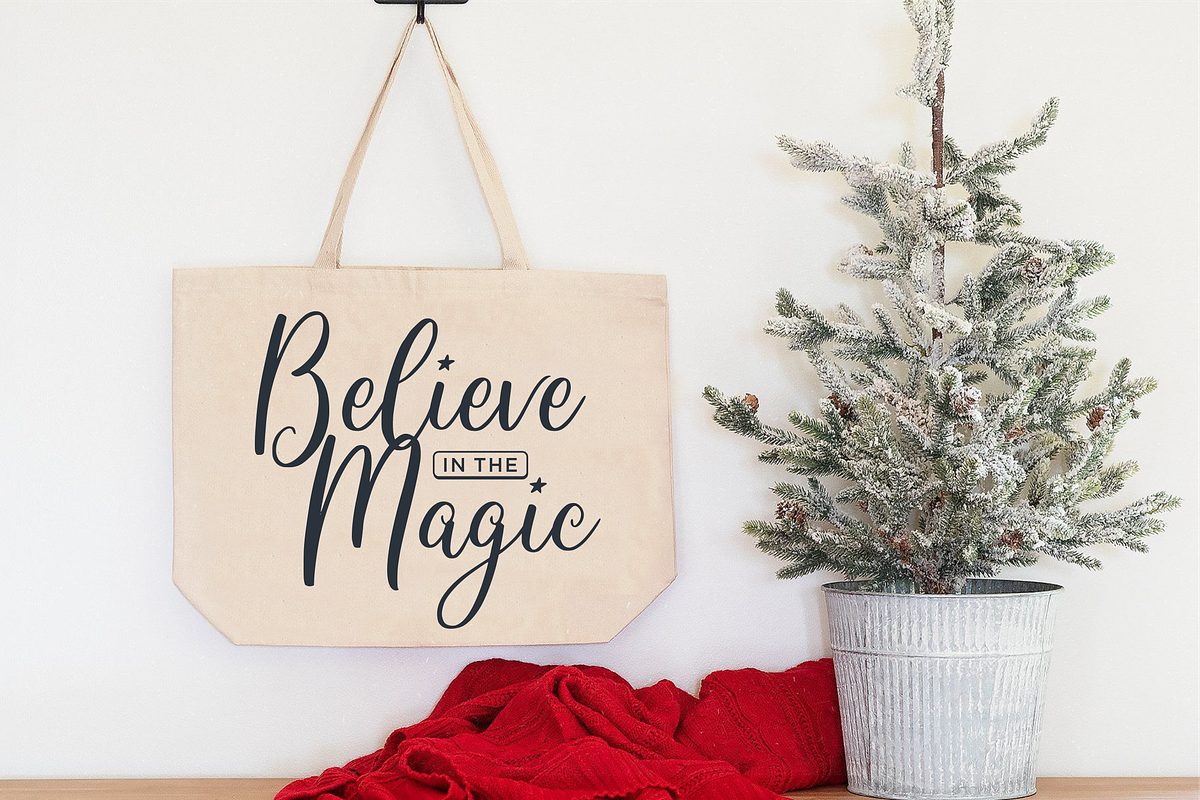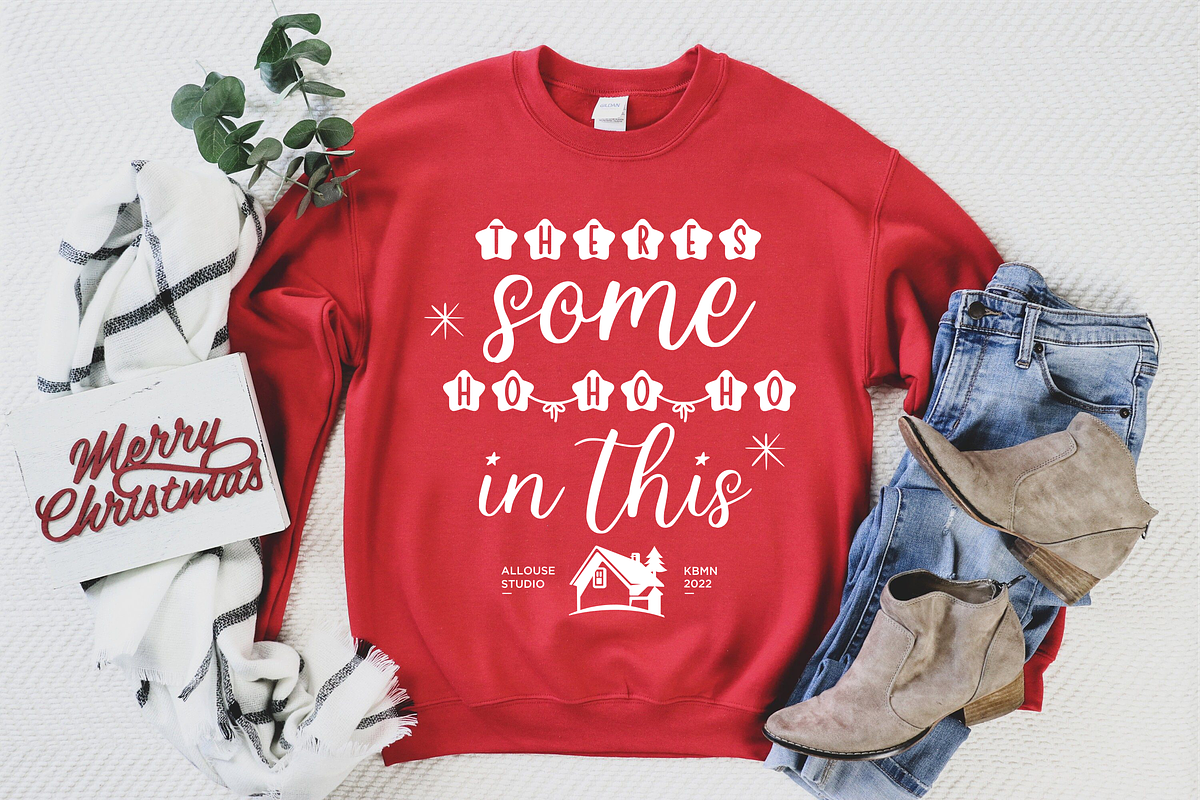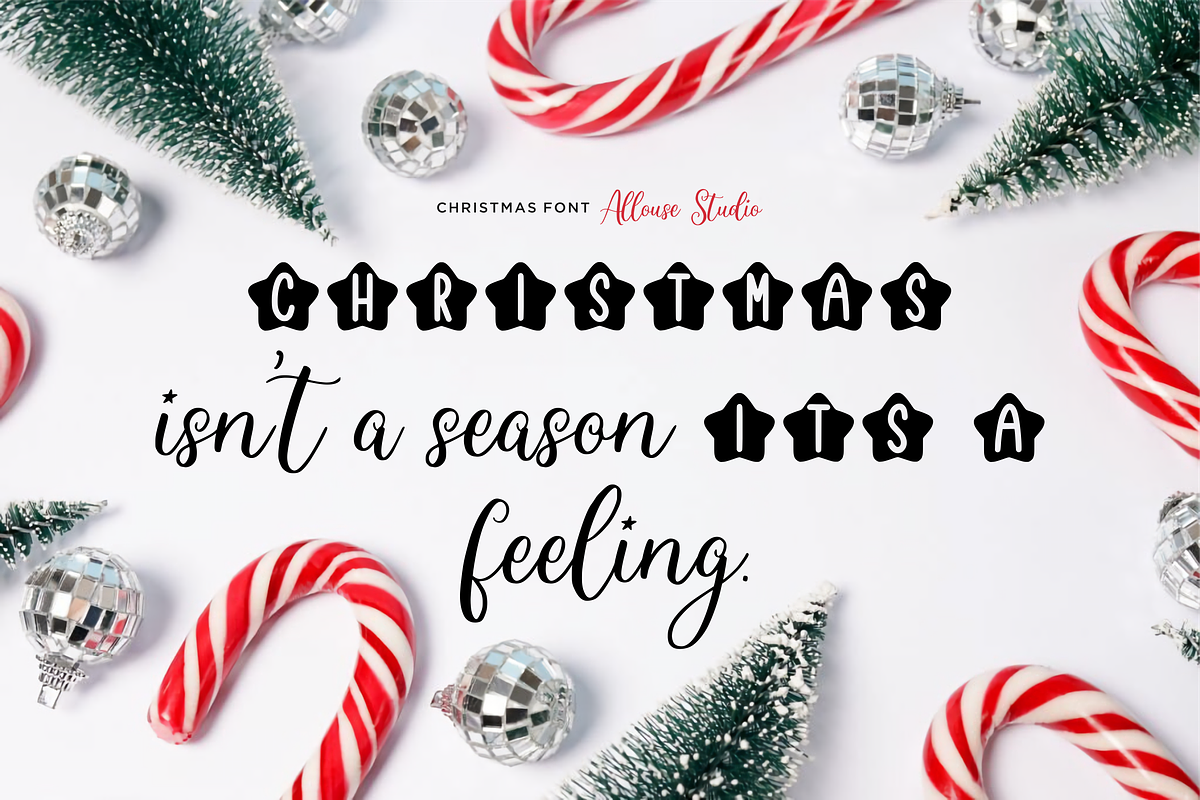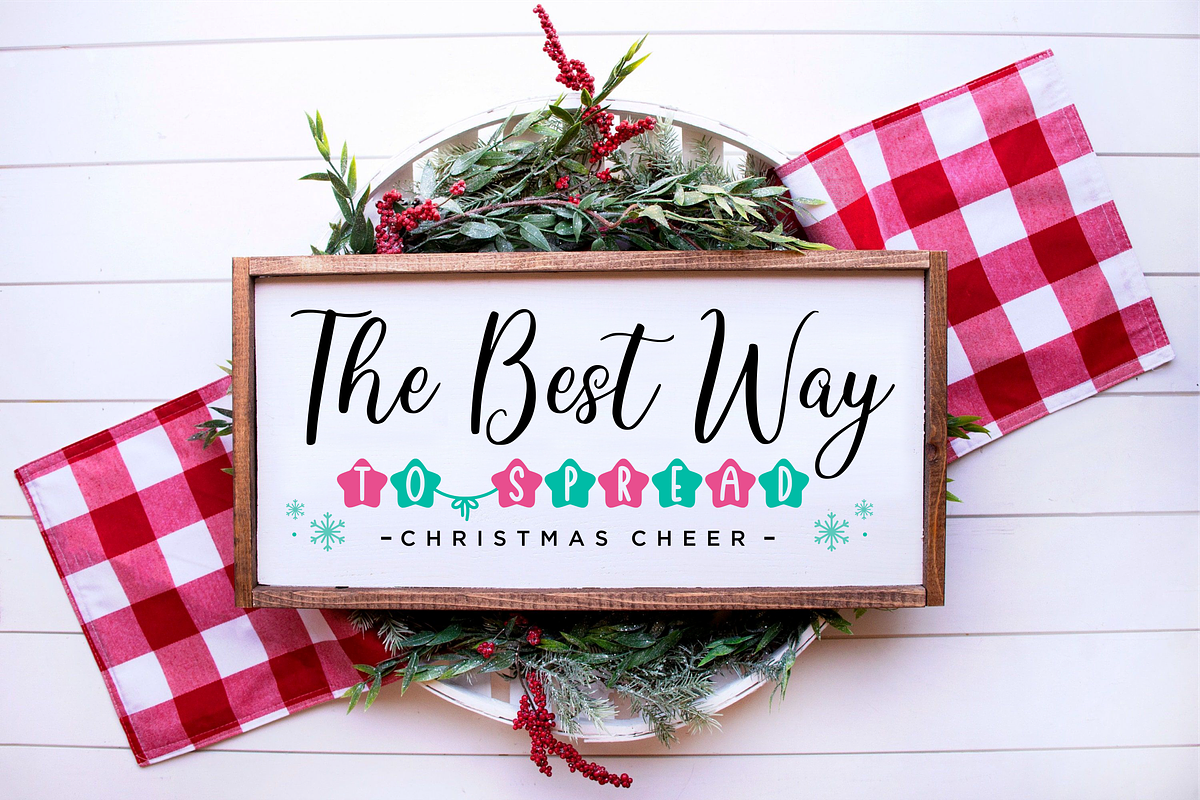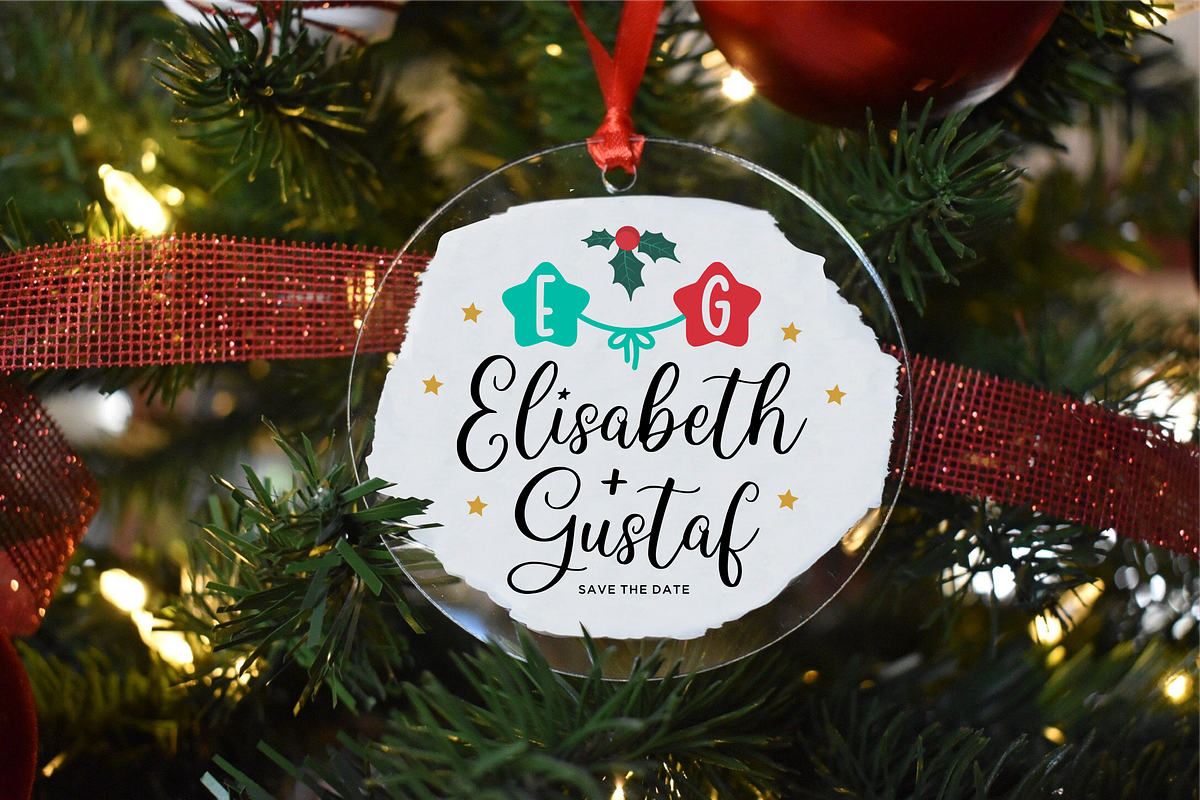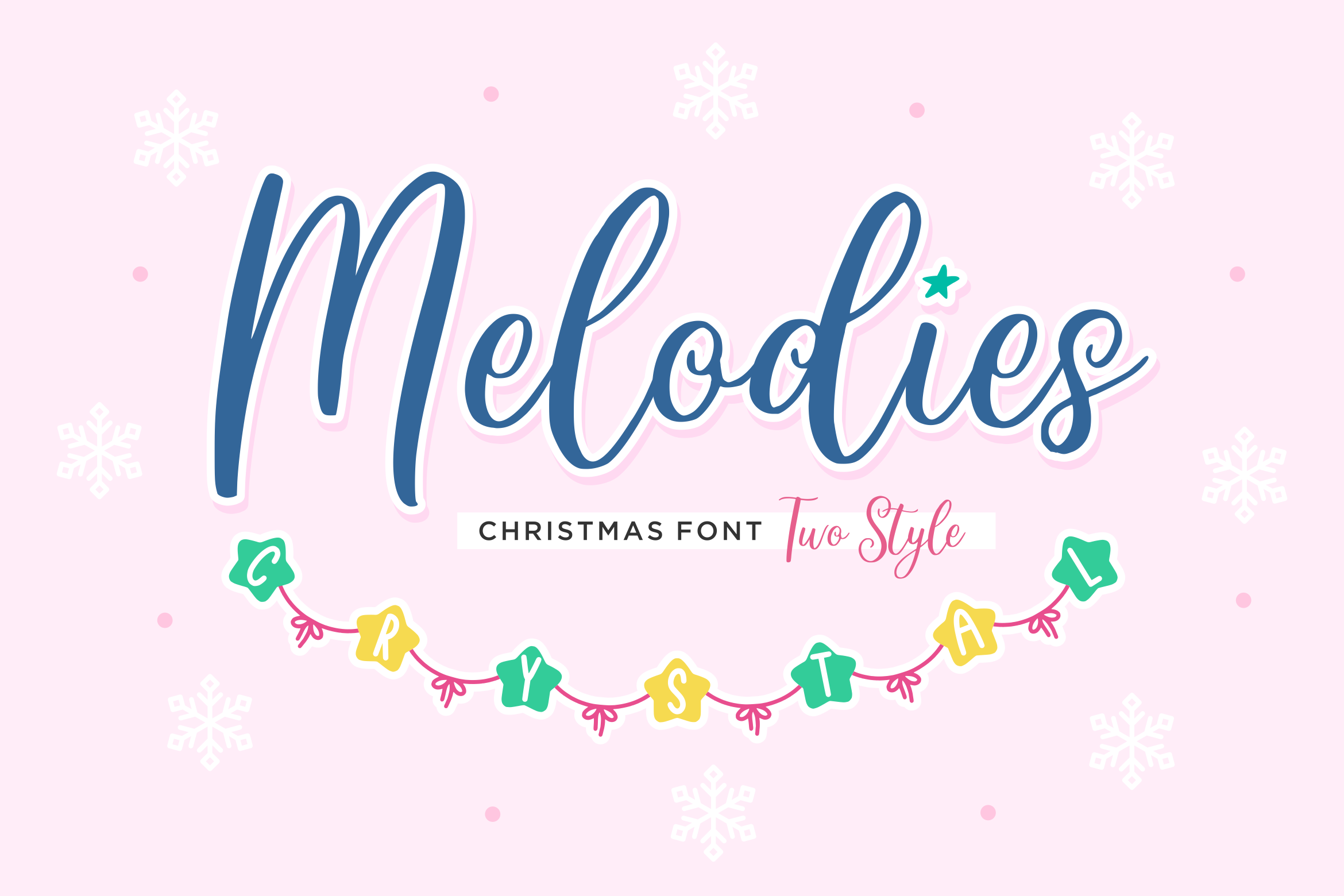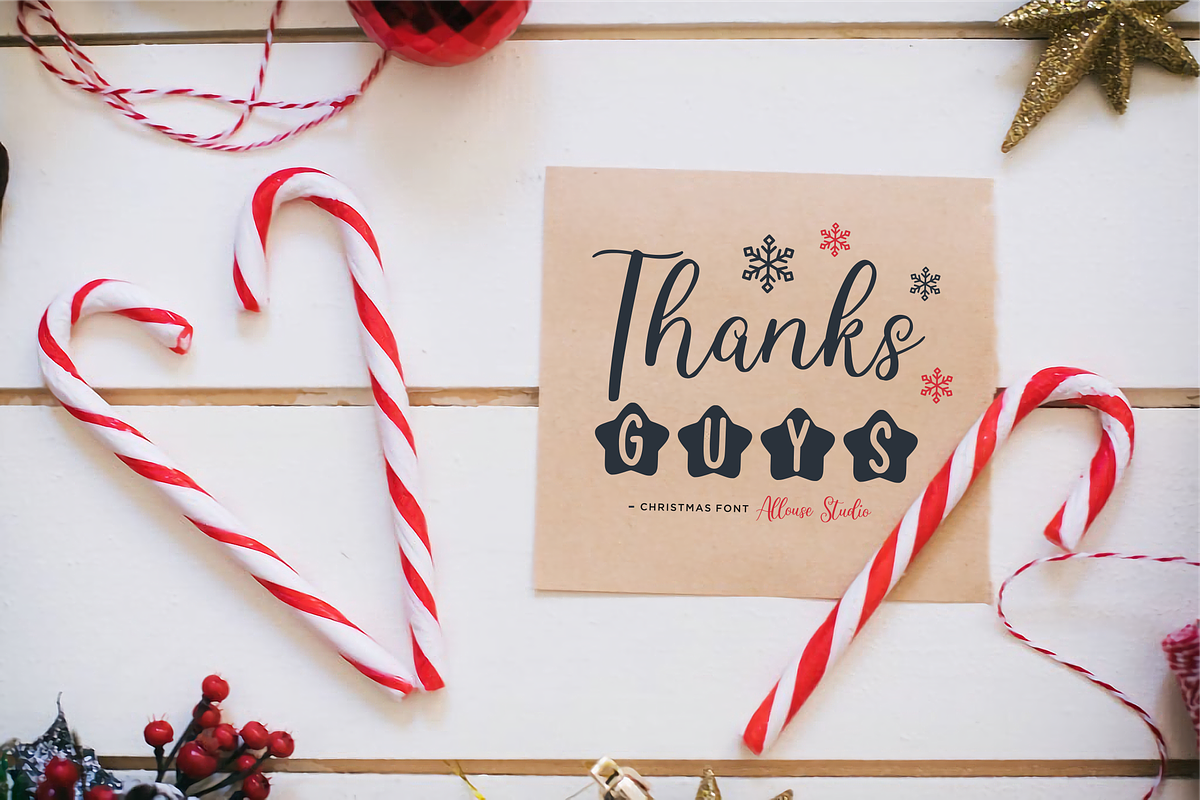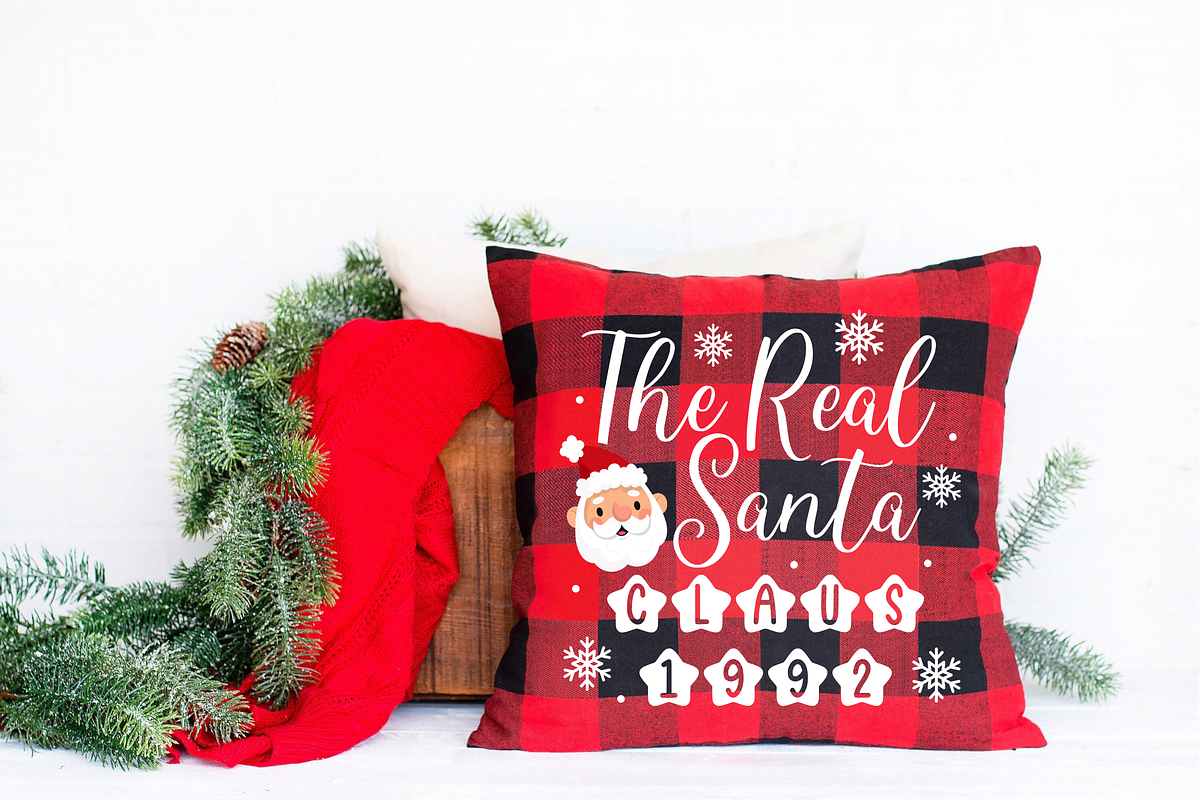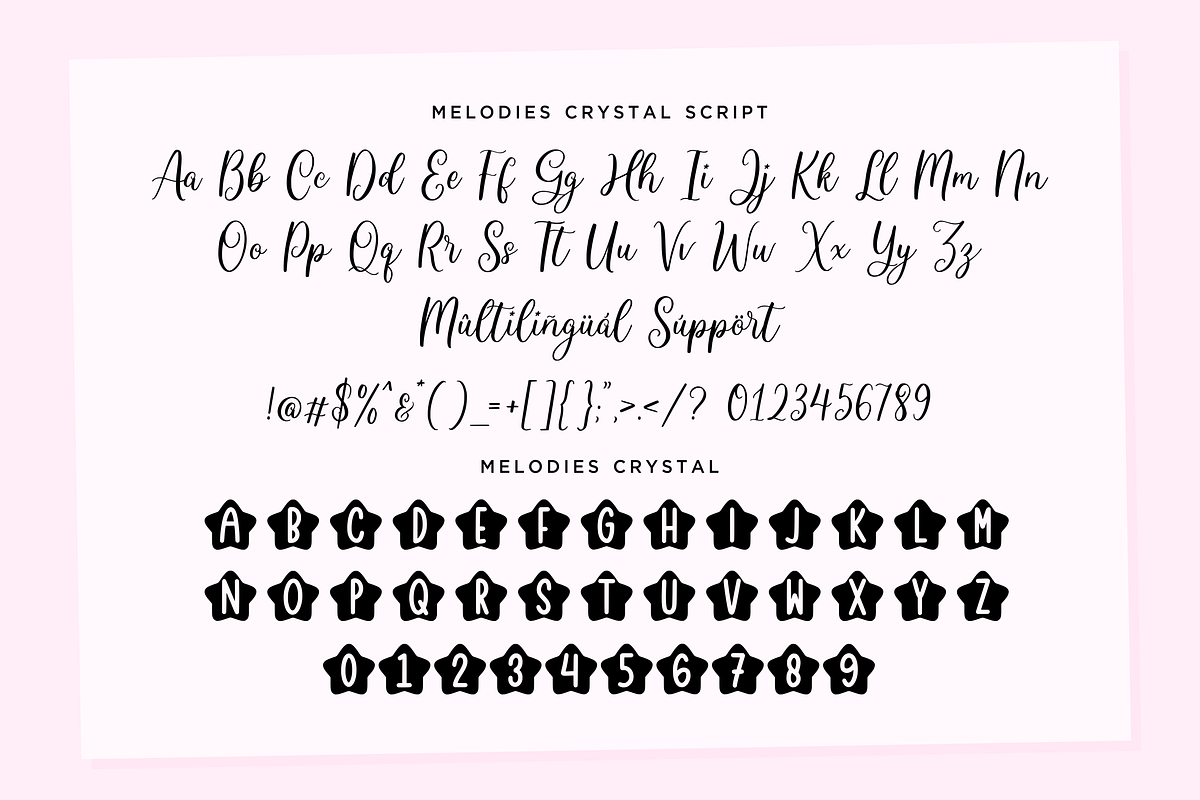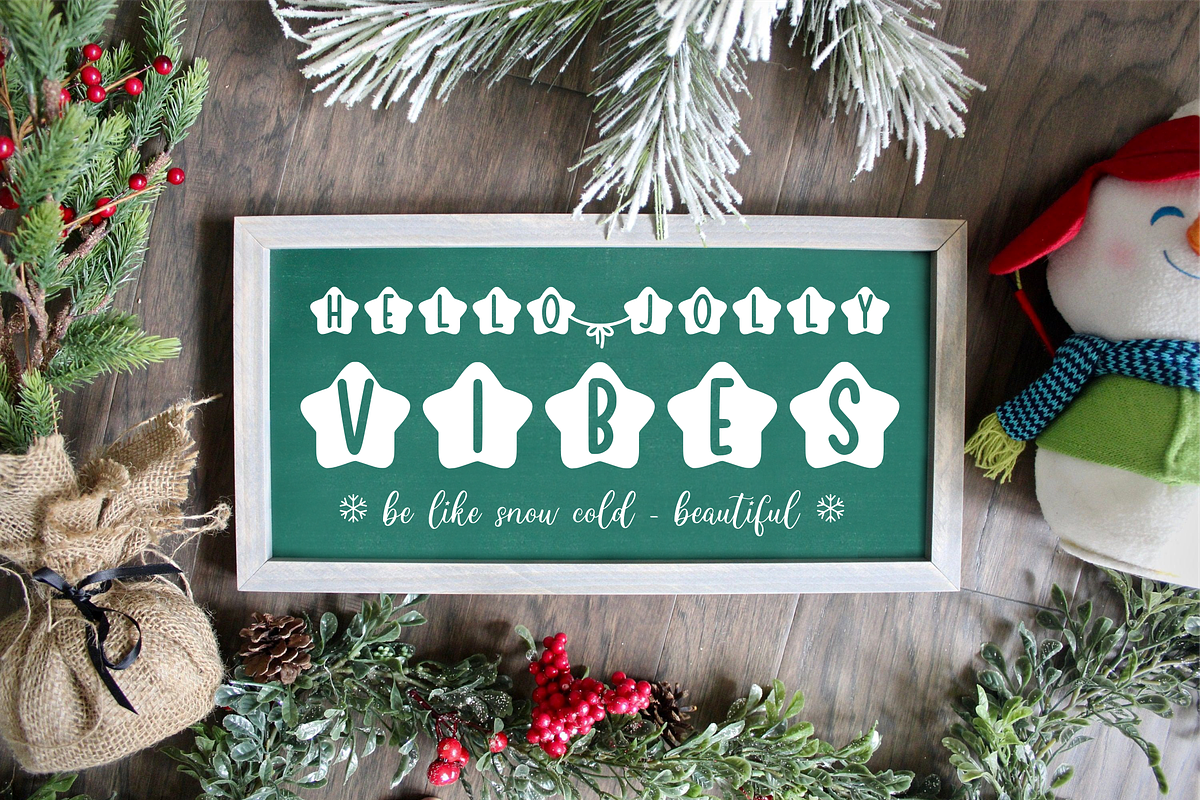
Melodies Crystal A Christmas Font
Proudly Presenting, Melodies Crystal A Christmas Font With Two Styles.
Melodies Crystal is perfect for any titles, logo, product packaging, branding project, megazine, social media, wedding, or just used to express words above the background.
Melodies Crystal also come with Multi-Lingual Support.